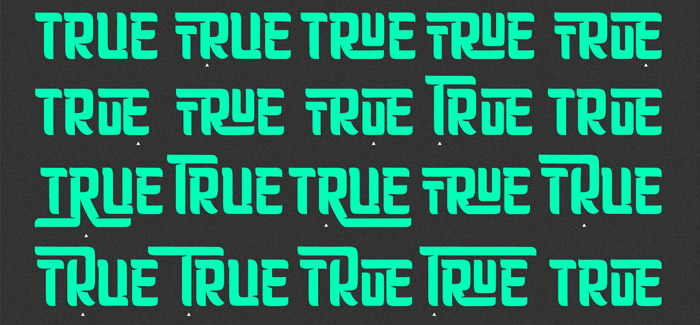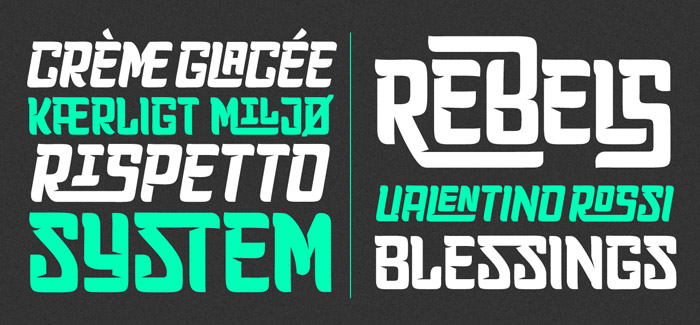
Planet Express font
Planet Express font by Felipe Calderón (designer of the award winning at the Bienal Tipos Latinos 2012 Letrista Script font, and the stylish Tulipan font) is a innovative and catchy typeface. It was originally intended to become a script font with ornaments, complements, and round shapes, but in the end we get the present Planet Express font – an interesting work from the aesthetic point of view. It’s best for large point sizes and contains little shadow-cuts in each character to give it more personality and distinctiveness.
Planet Express font family consists of two weights: Regular & Italics, plus additional set of Extras, like arrows, catchwords, flags, emblems, hands, fleurons & crossed elements. The typeface has 250 intelligent ligatures; it’s designed with programming in OpenType: Ligatures, Discretionary ligatures, Stylistic Alternates, Stylistic set 01, Stylistic set 02, Stylistic set 03, Stylistic set 04, Stylistic set 05, Stylistic set 06, Stylistic set 07, Stylistic set 08 & Stylistic set 09 and multiple language support.
Planet Express font is a multipurpose typeface and has many possible applications: you can write standalone words and play with the prolific Extras to achieve eye-catching type designs. It fits perfectly in the contemporary graphic design concepts like sports, cars, hip hop, music, social network, skateboarding and more.